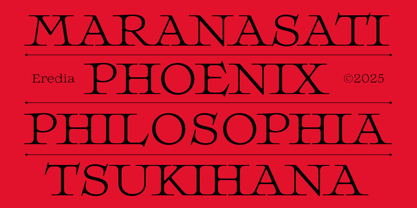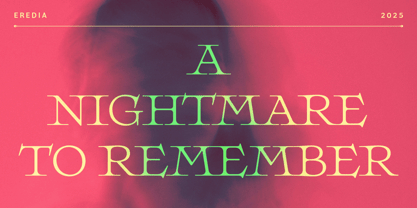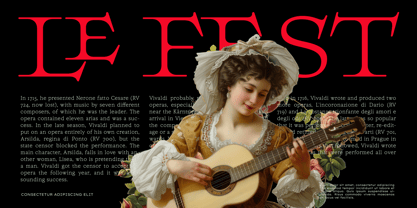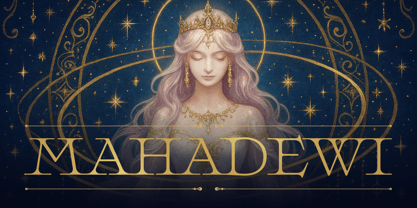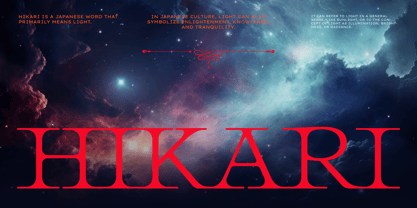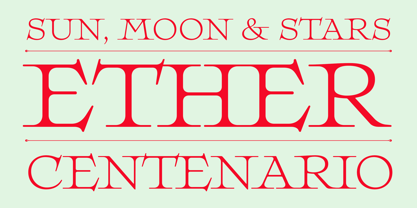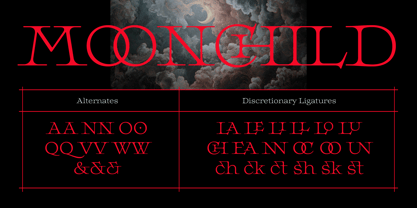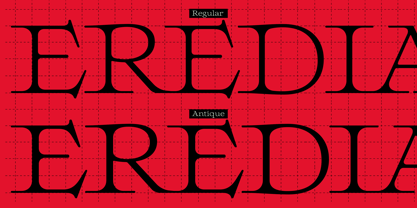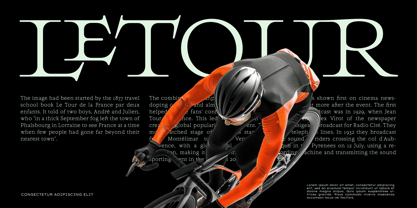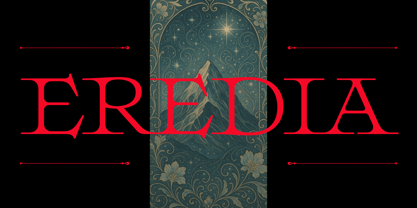
Eredia
The Eredia Font Family was designed by Nasir Udin, Haidi Shabrina and published by Nasir Udin. Eredia contains 2 styles and family package options. More about this family
Whimsical and ethereal. The inspiration of Eredia came from mind when seeing one of Japan guitar instrumental video clip on Youtube. The video clip paints fantasy, feminine and ethereal touch in mind. 'What if we made a typeface that breathes that touch? Whimsical, ethereal, feminine and still have fantasy touch on it.' And then, after a few months of works, Eredia was born. As from the original inspiration, Eredia is especially perfects for creative people who needs visual branding for their songs in dark fantasy form.
Eredia comes with 2 styles, Regular and Antique (a bit bolder and having more old style touch than the Regular).
About Nasir Udin
Before he got into type design, he had designed travel posters under the Vectro label. His illustrative style is an impression of similar posters from the mid 20th century. As a designer, he enjoy looking to both the past and the future for inspiration. That's why he love to blend a retro style with a futuristic concept. He started type design on 2016 as his side project, before he take it seriously. You can follow @studio.nasir on Instagram, he loves to capture a lettering on old buildings (Dutch, Chinese, Arabic, blend with the local Javanese).